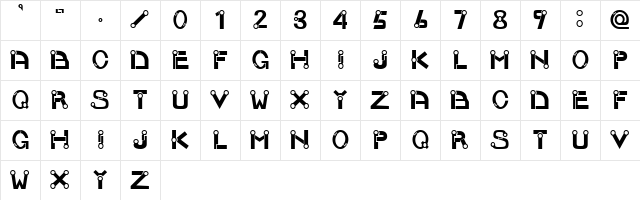
Joint Regular Free Font
Joint Regular
Design Context for Joint
Joint is a composed and adaptable typeface that performs quietly and consistently across a wide range of design contexts.